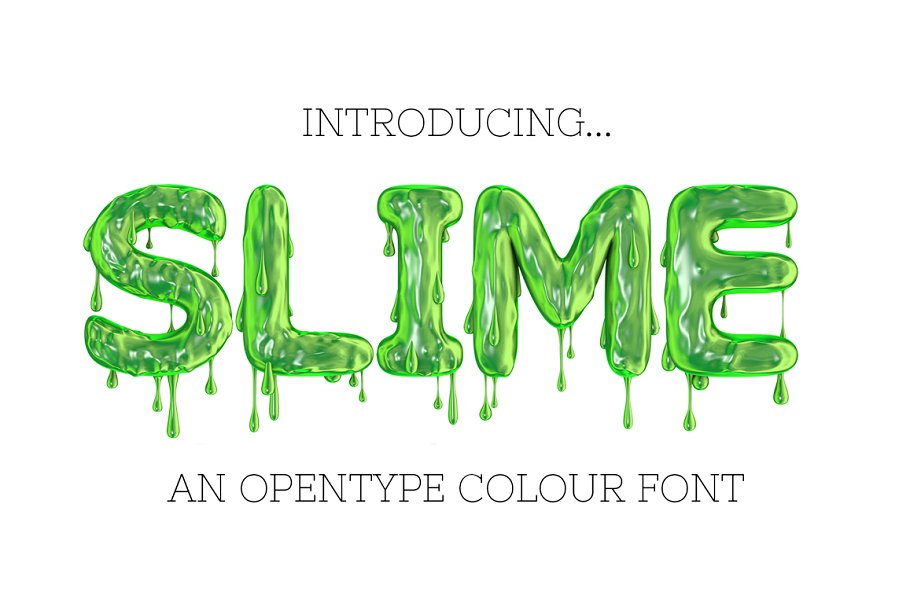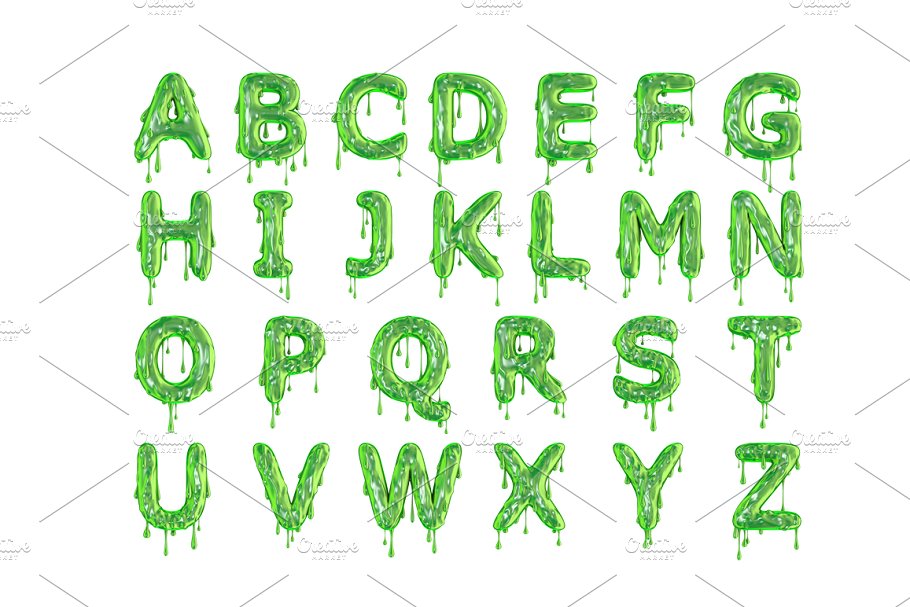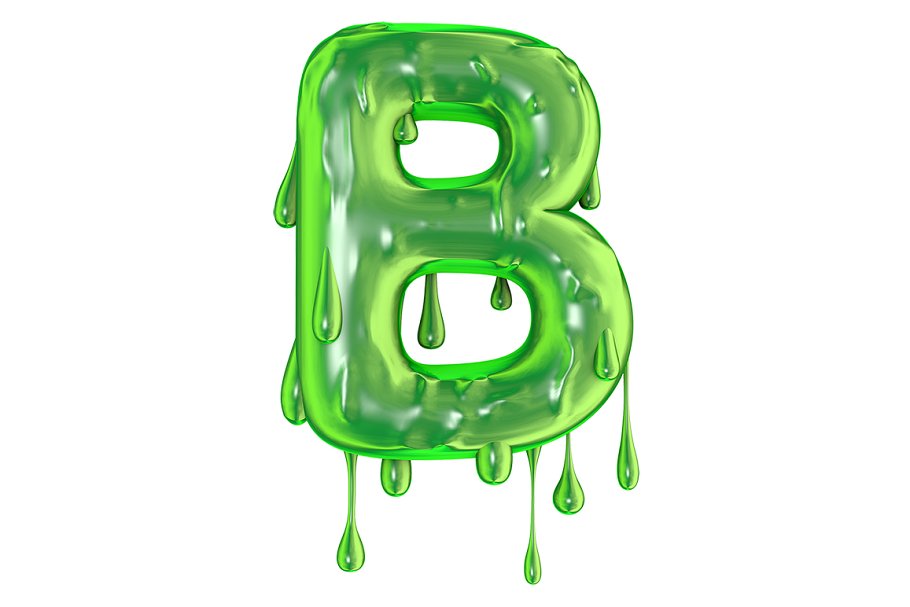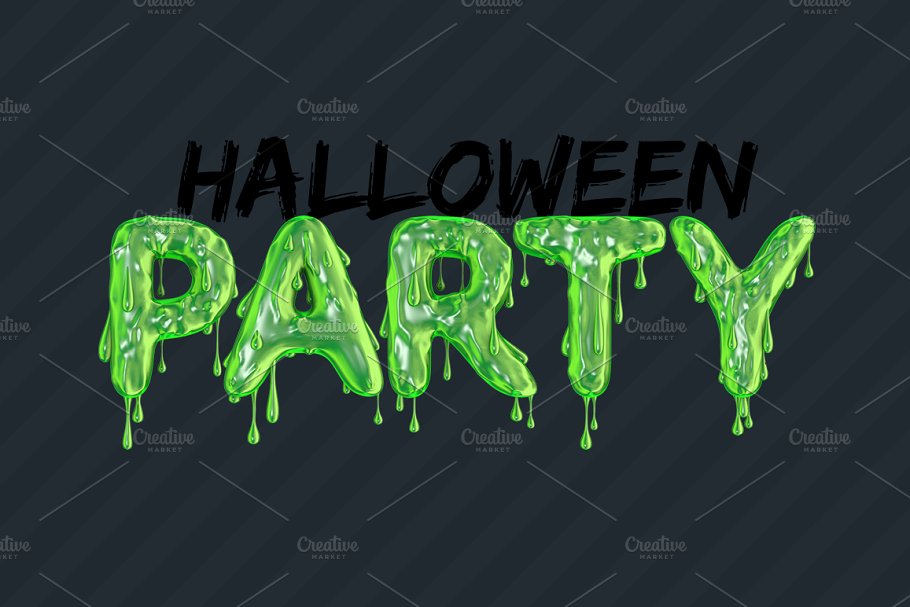
About the SLIME OTF pngs Font
A spooky oozing welcome to SLIMESLIME is a colour OTF font, Each letter has been created in 3D then turned into a simple to use font, Just download and start typing in slime green lettering, SLIME is perfect for spooky halloween party invites!Also included in the download is a photoshop document with all 26 characters as individual png layers, The size of the letters in both the font and pngs is roughly 1000px tall including the slime dripsThe font is a colour OpenType file which means this font will show up only in apps that are compatible with color bitmap fonts, like Adobe Photoshop CC 2017